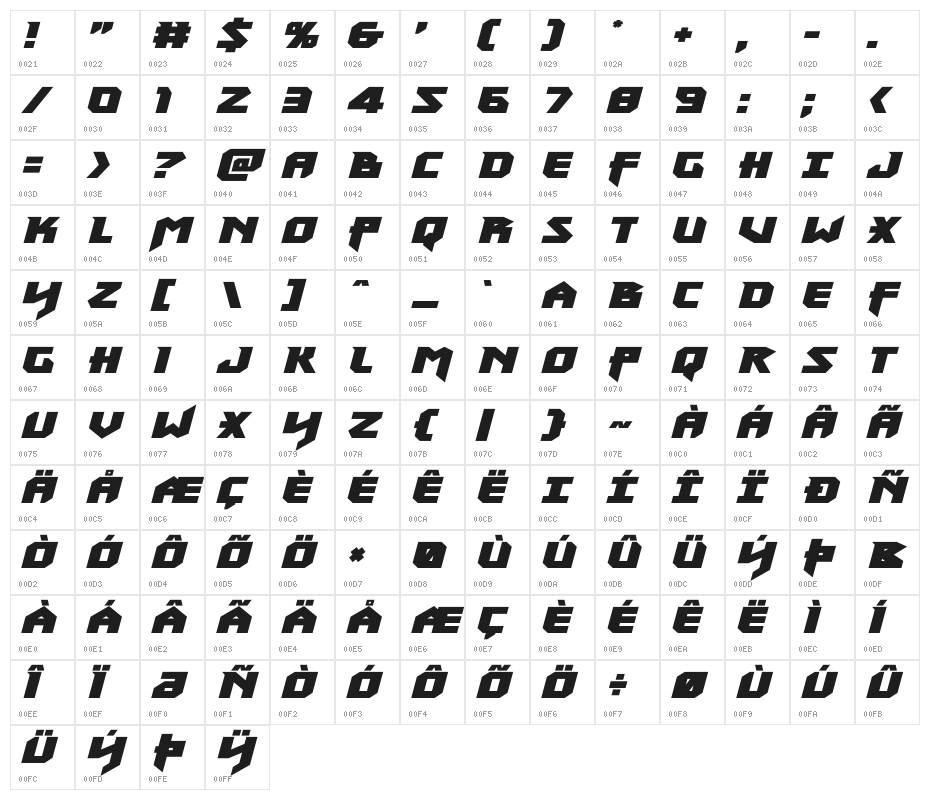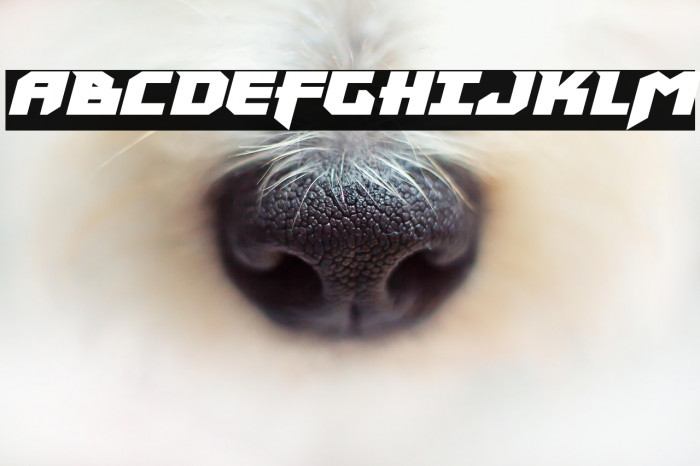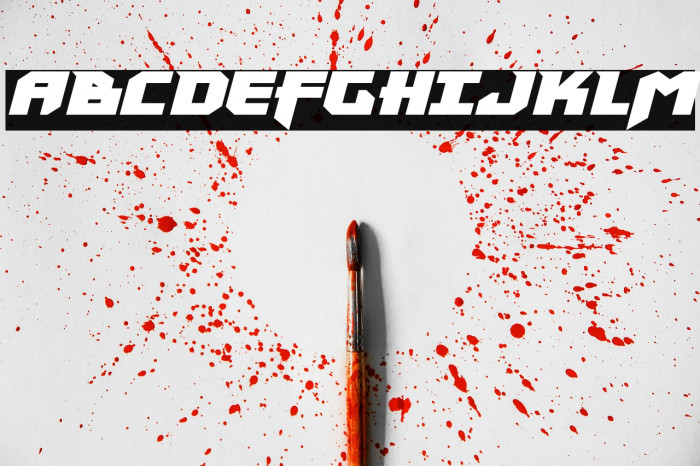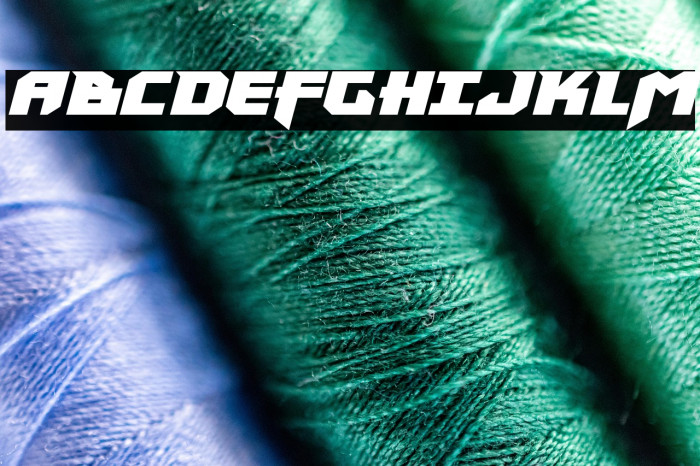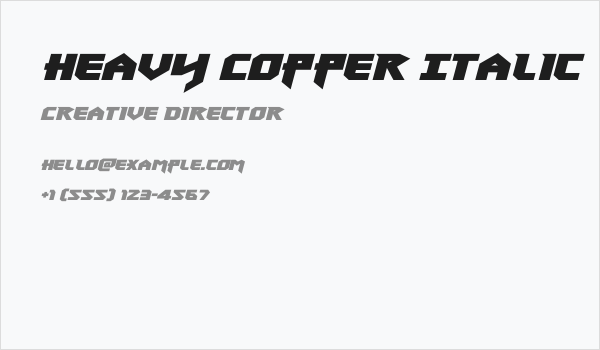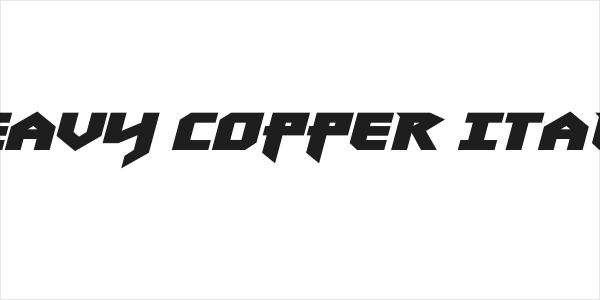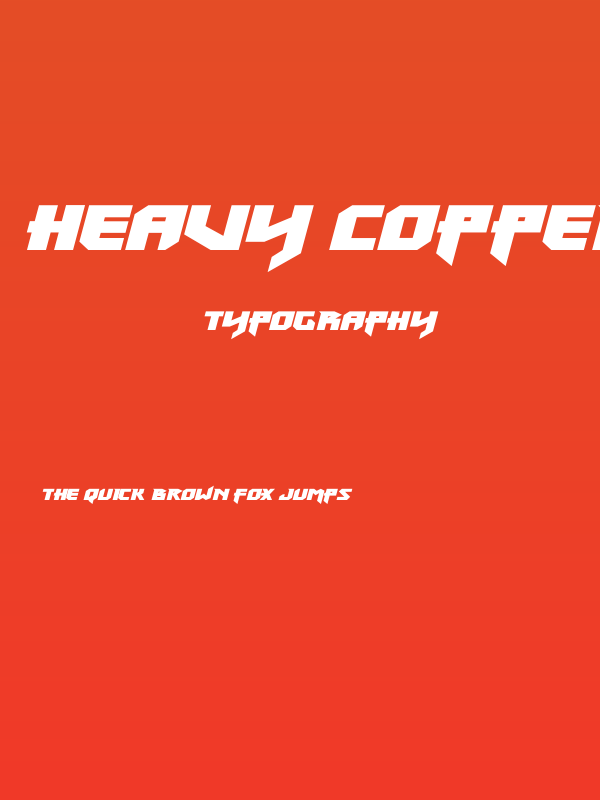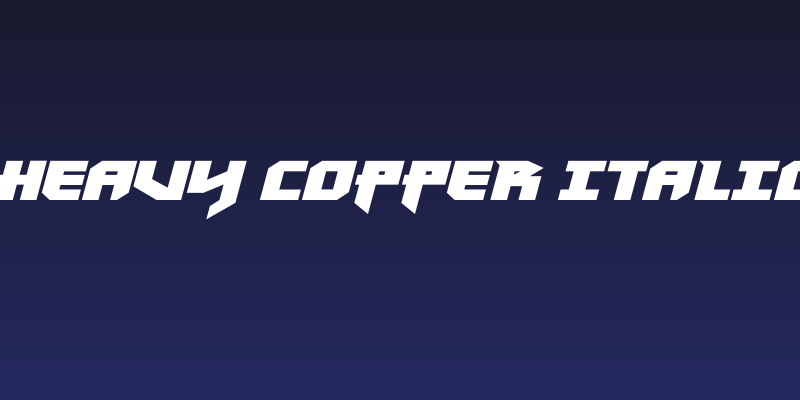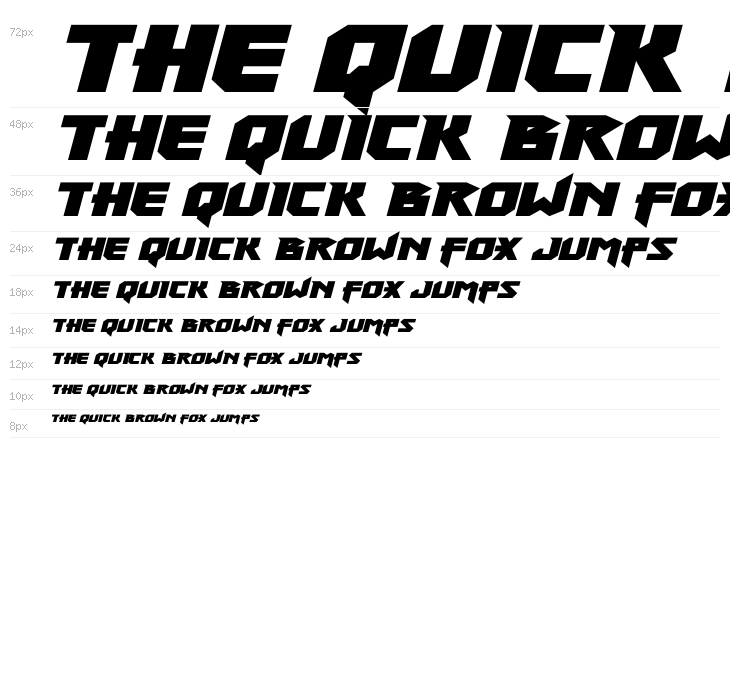
Heavy Copper Italic Font
Heavy Copper Italic Description
This font features a bold and dynamic style with sharp, angular edges and a strong presence. The characters are heavily stylized, giving them a futuristic and aggressive appearance. The italic slant adds a sense of motion and energy, making it ideal for attention-grabbing designs. The uppercase and lowercase letters maintain a consistent design, with a unique geometric flair that sets it apart from more traditional fonts. The numbers and special characters follow the same bold and angular theme, ensuring a cohesive look across all text elements.
| Proposed Projects | Ideal for sports branding, video game titles, posters, and dynamic logo designs. |